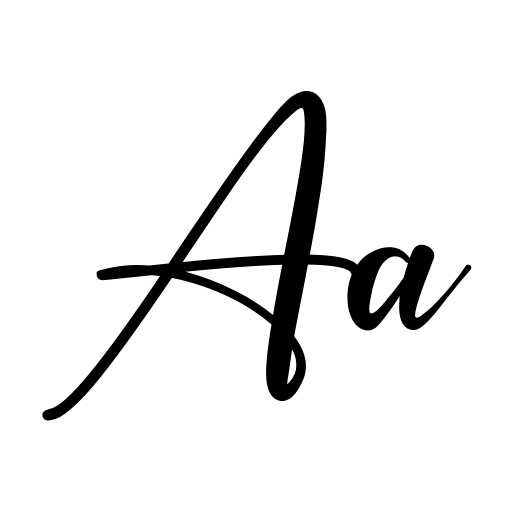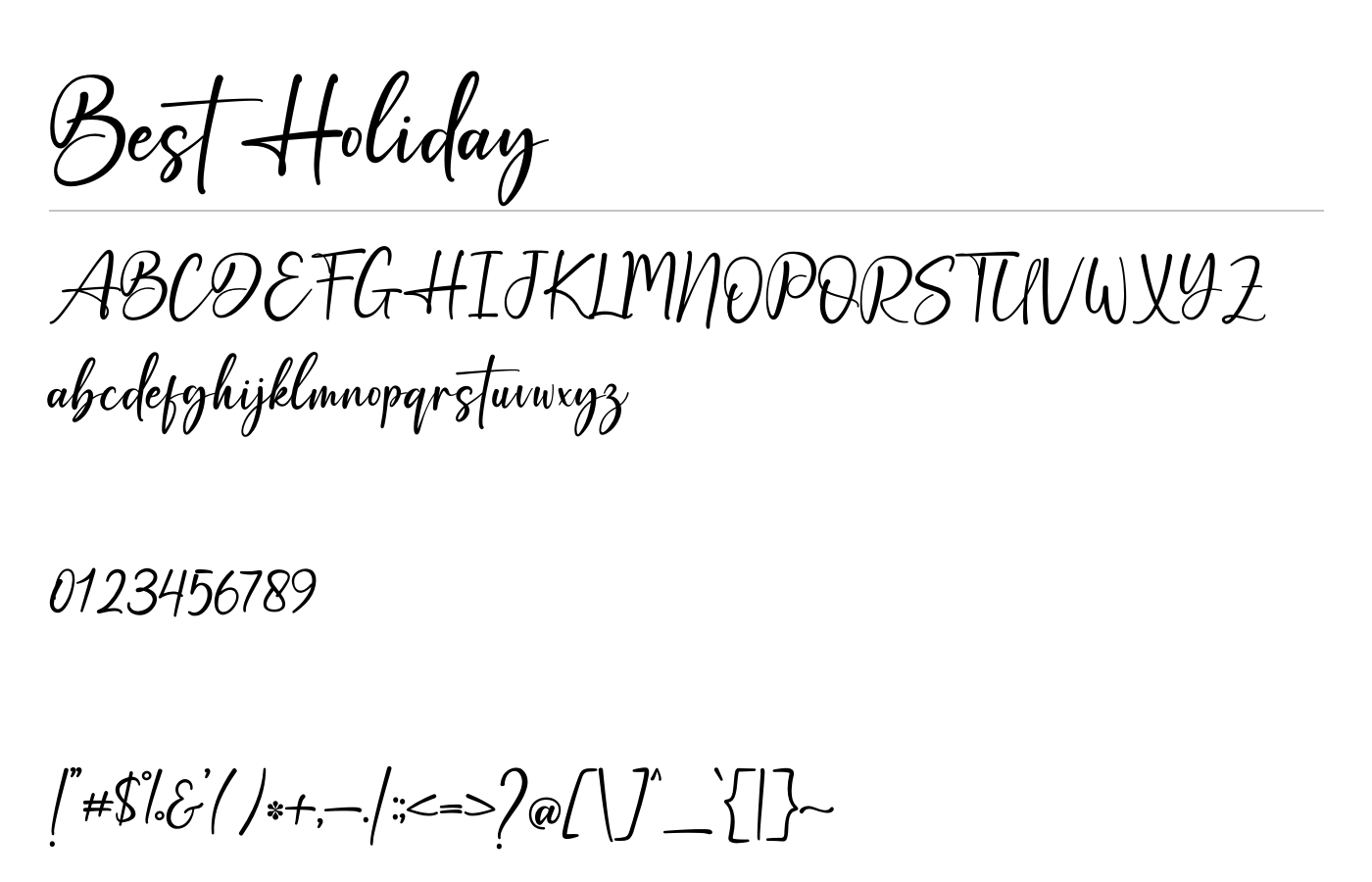
Best Holiday Font is a lively and elegant script typeface with a handwritten feel, featuring smooth, flowing lines and moderate contrast. Its tall, slender letterforms and playful uppercase characters bring a charming yet stylish personality, making it ideal for festive branding, invitations, and creative headlines. This font works beautifully in any design needing a warm, inviting touch with a modern, sophisticated flair.
Best Holiday Font
About Best Holiday Font